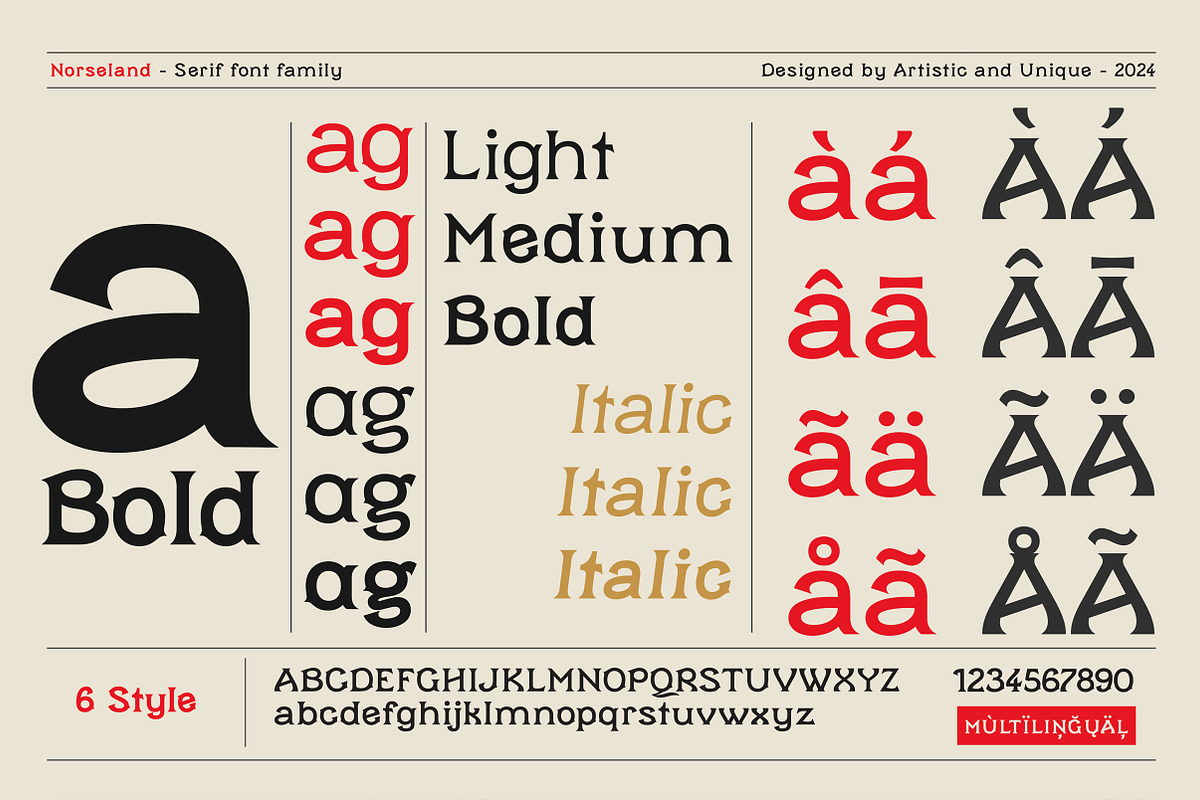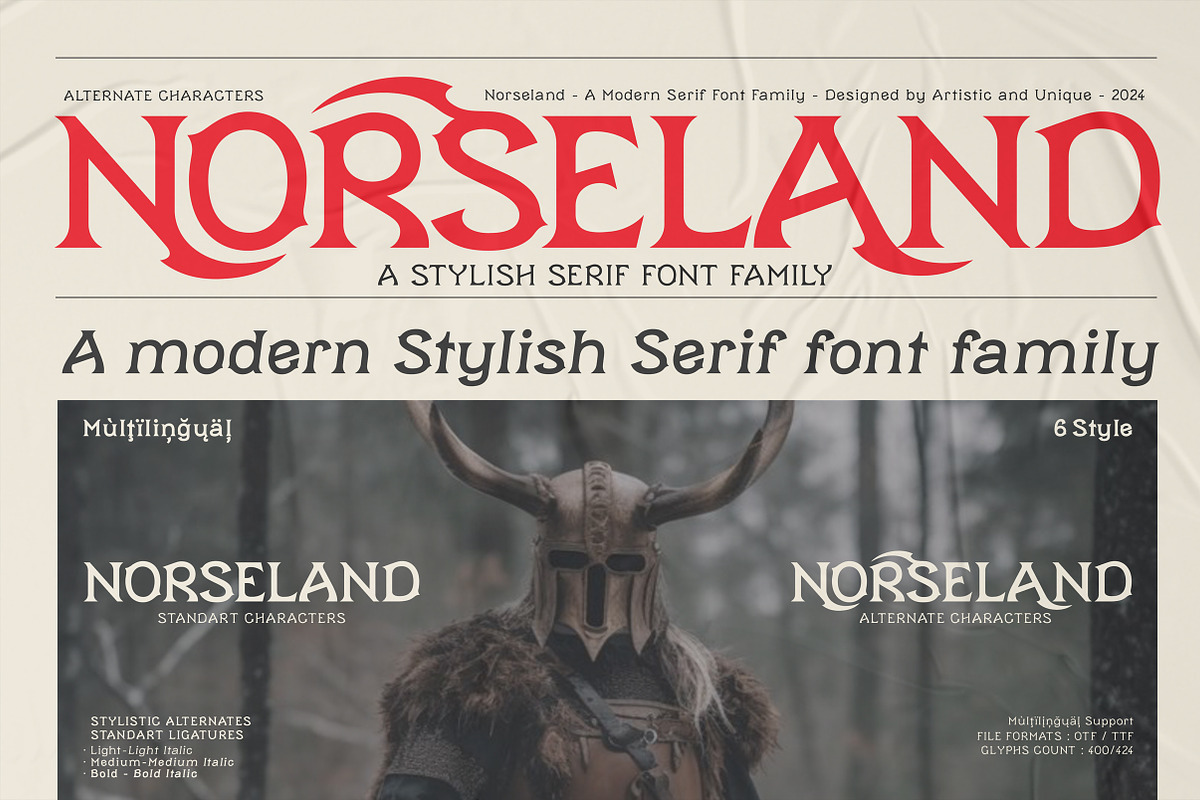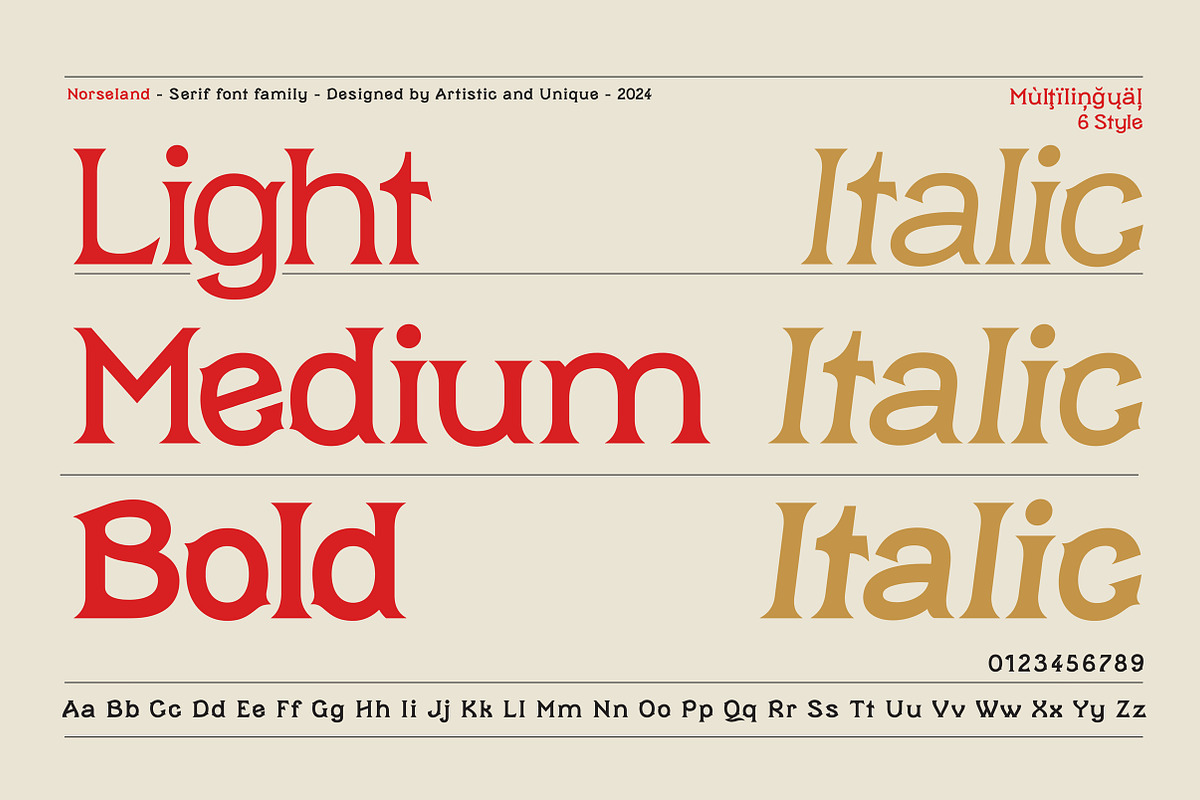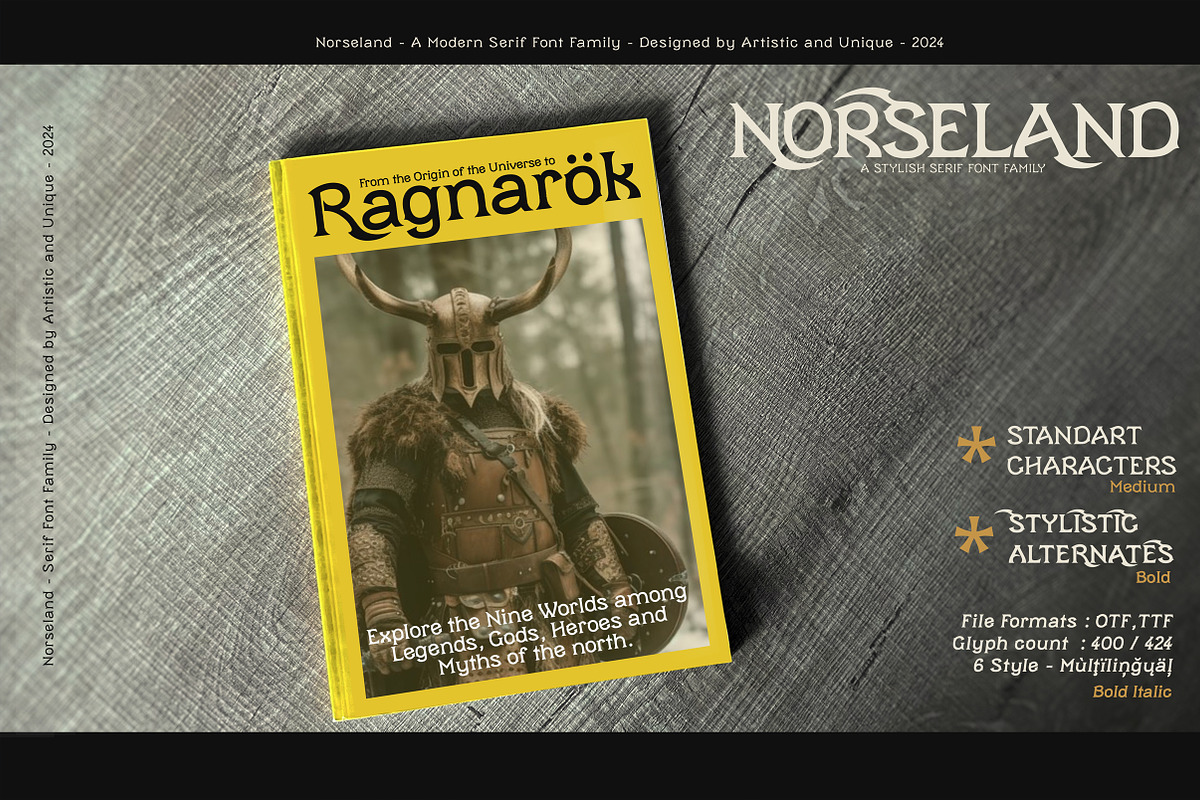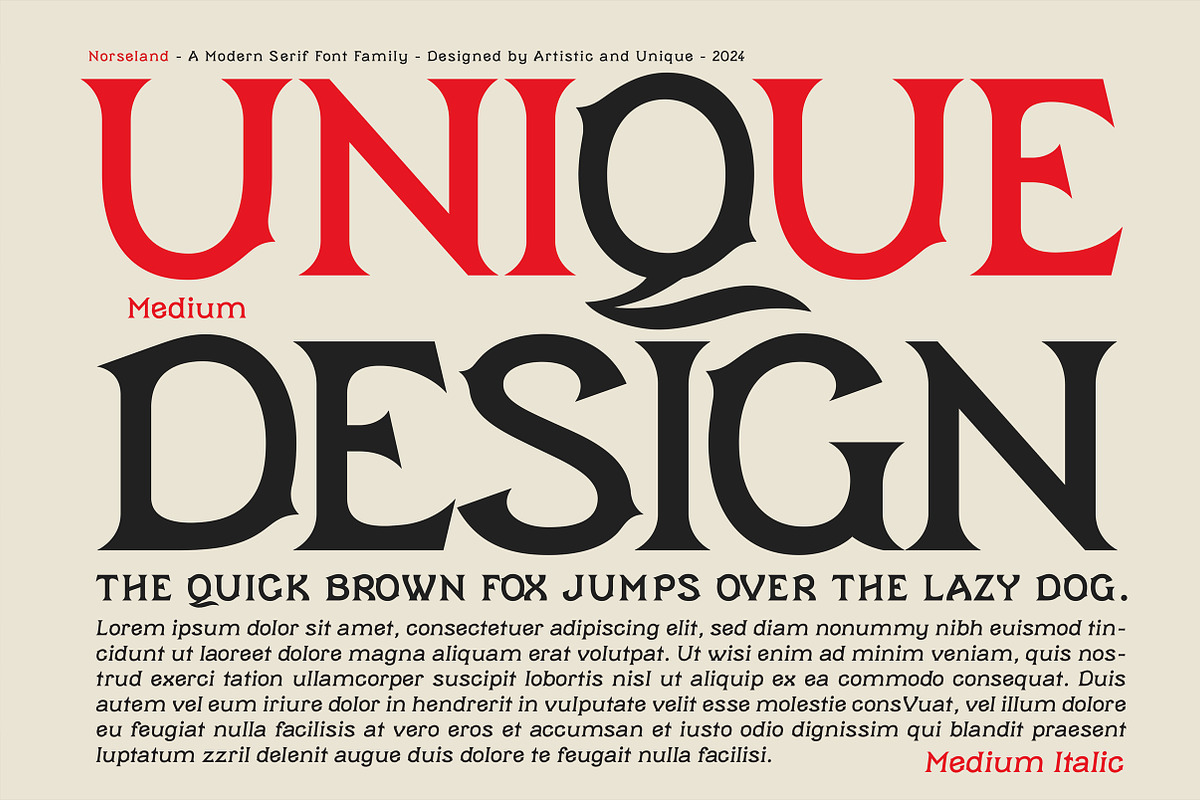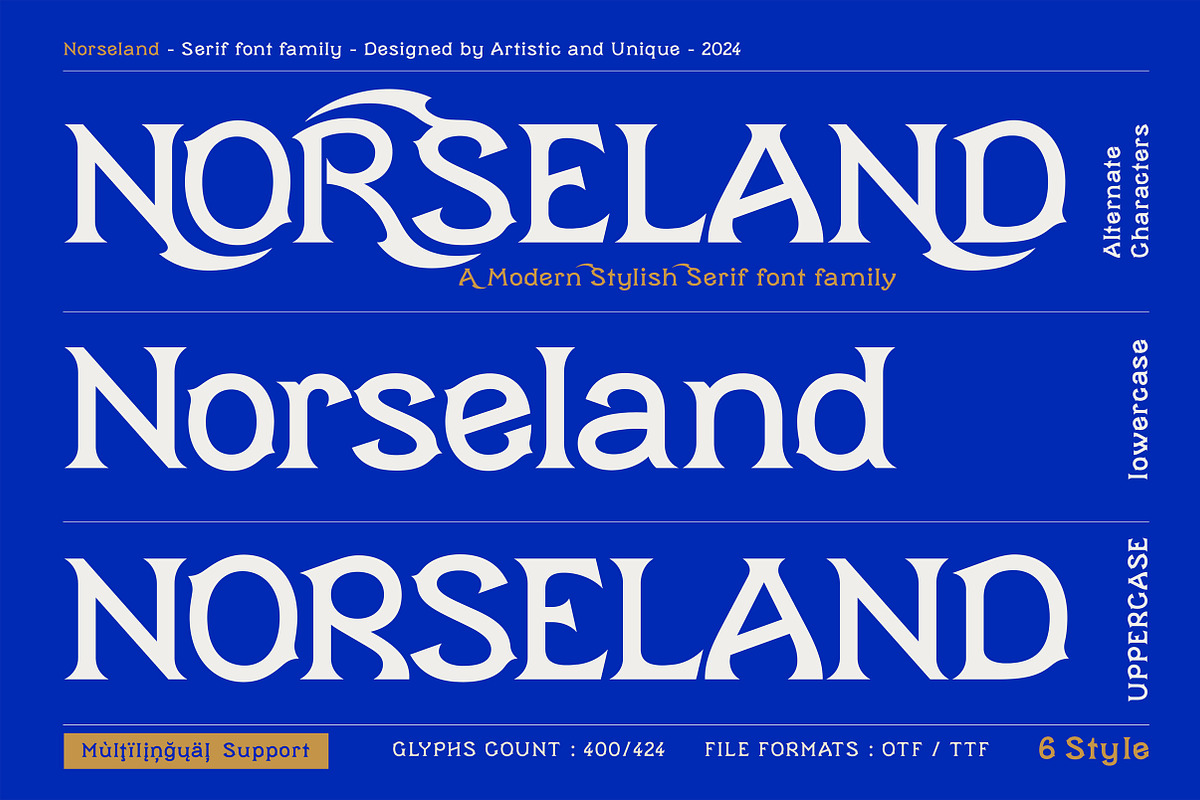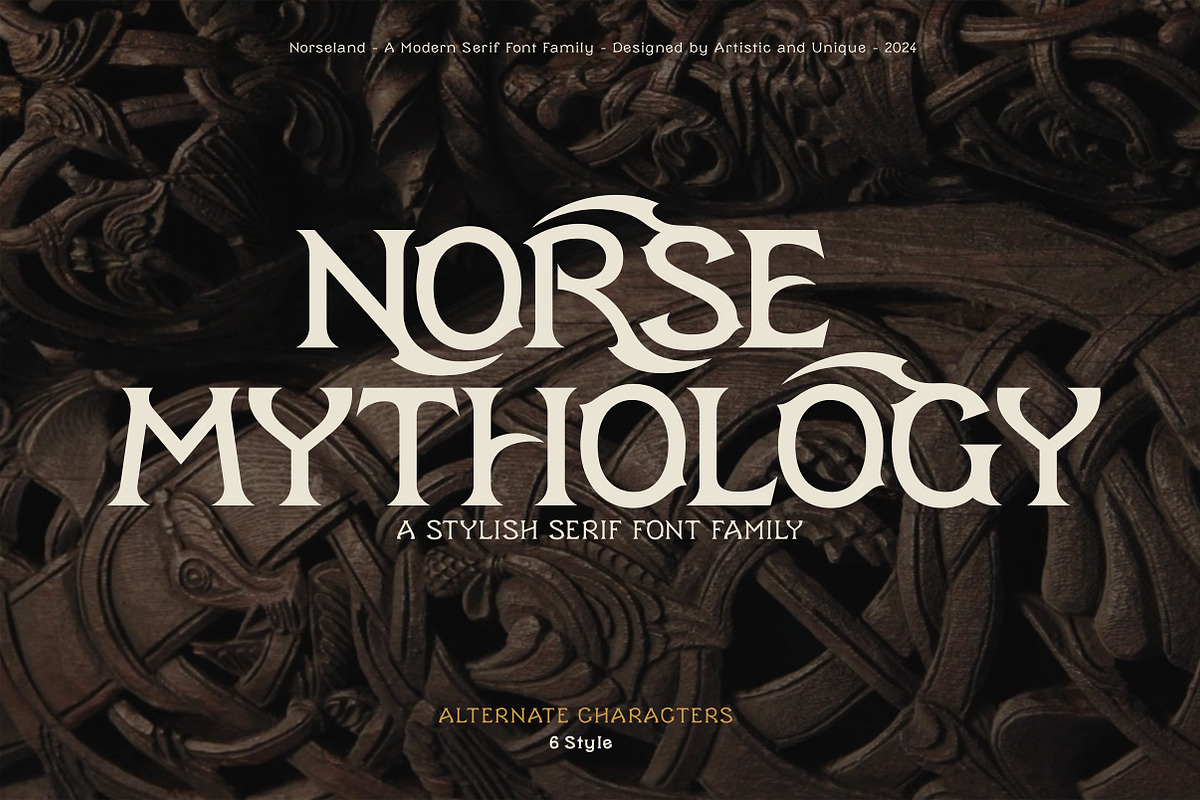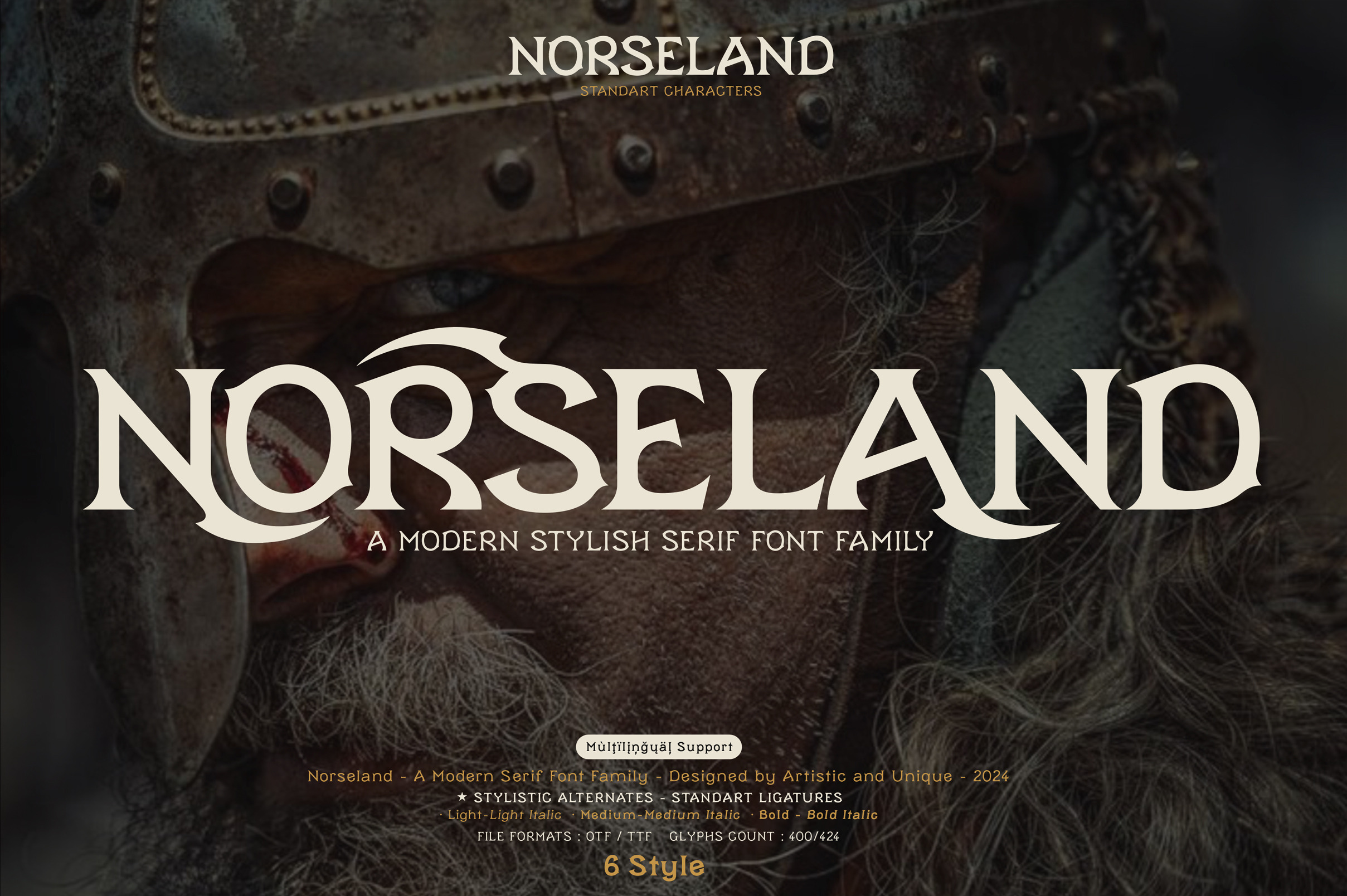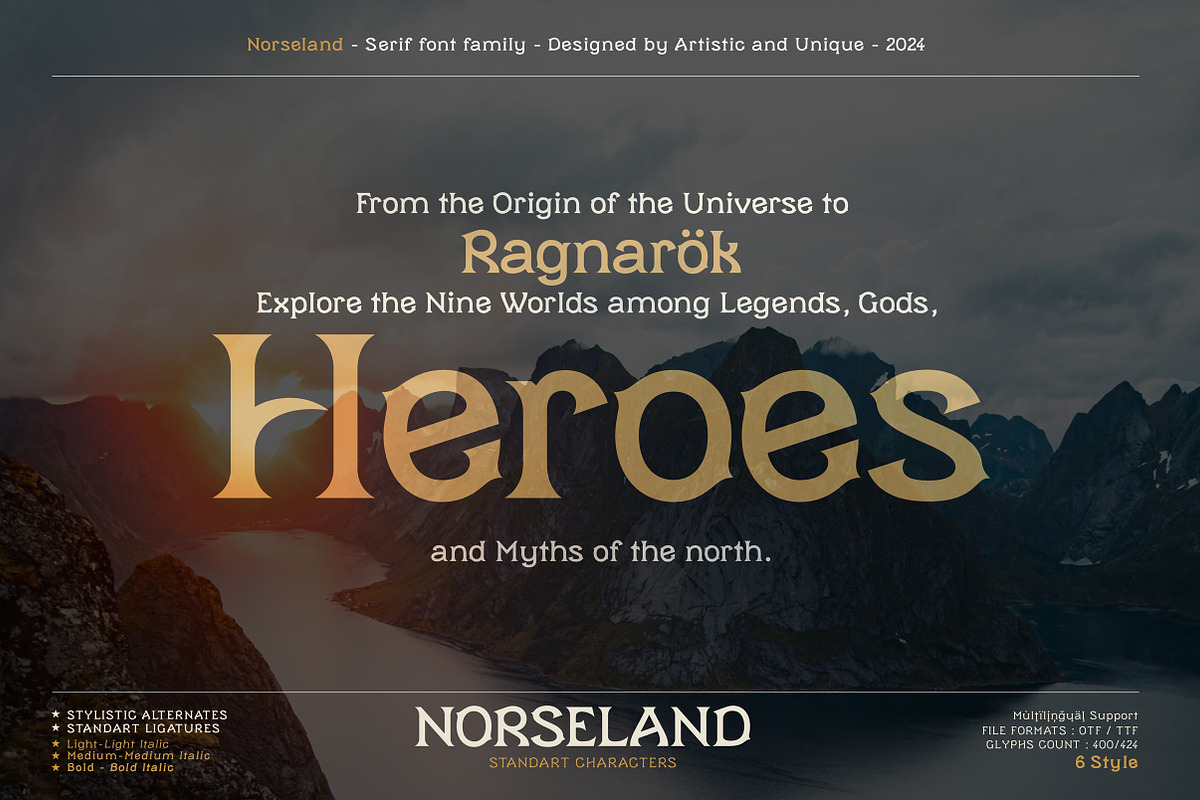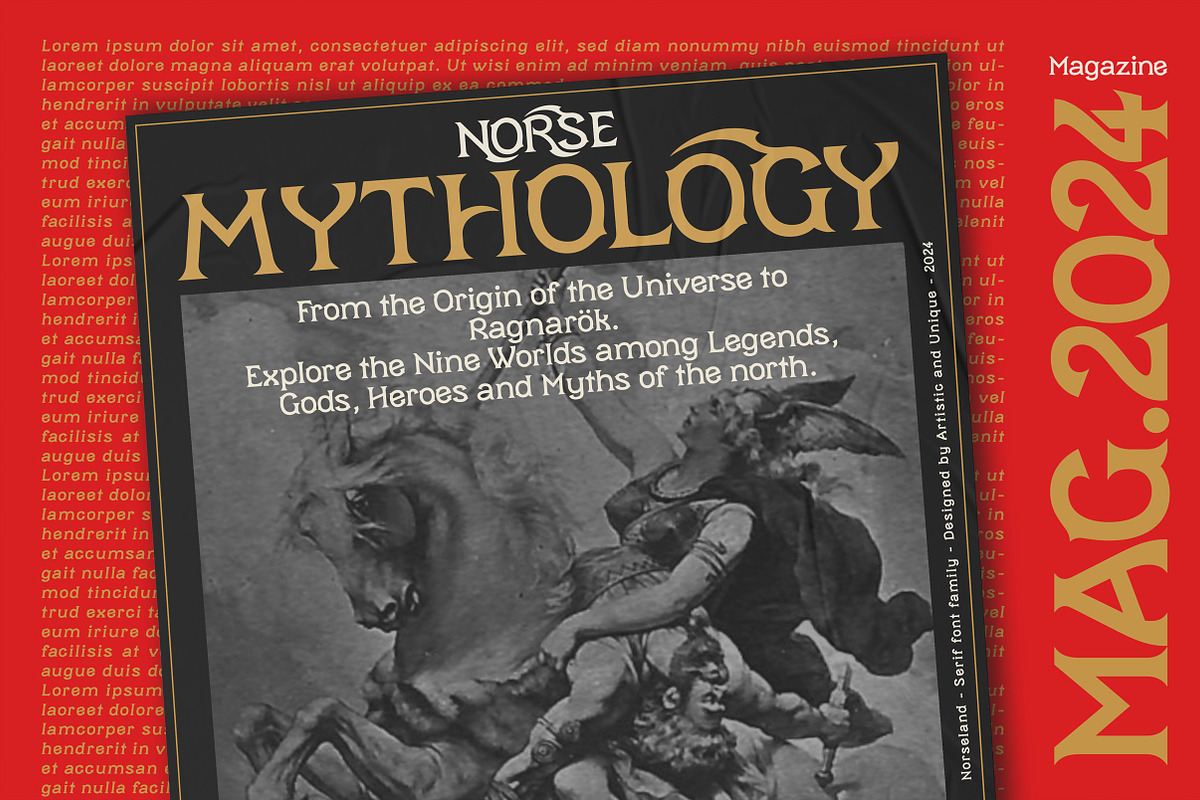
Norseland - Serif font family
Norseland - Serif font family - 6 Styles - Multilingual supports.
Norseland is a stylistic and powerful serif font family that can be effective in the development of your projects with different alternative type designs and multilingual options.
You can use this font, which is inspired and shaped by the Norse mythological legend, in your designs in accordance with the concept spirit.
Especially for album covers, magazines, books, branding, logo design, web design, title, movie titles, game design etc.
If you’re looking for a font with stylistic alternatives, Norseland font might meet your needs.
With this font you can create your unique designs.